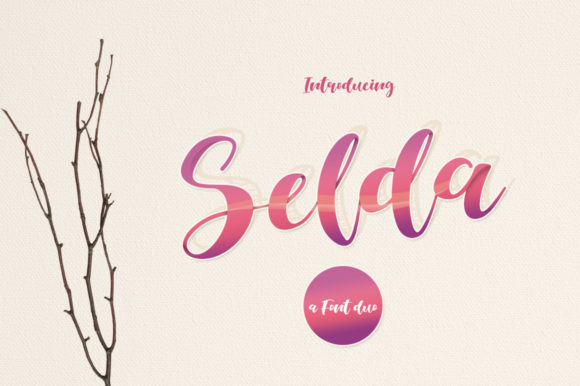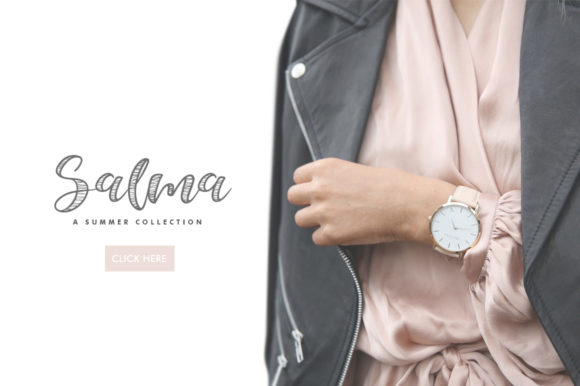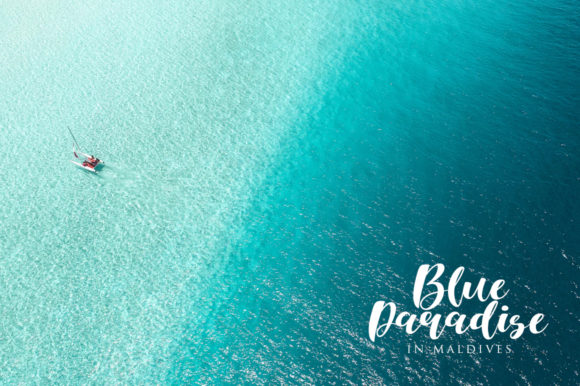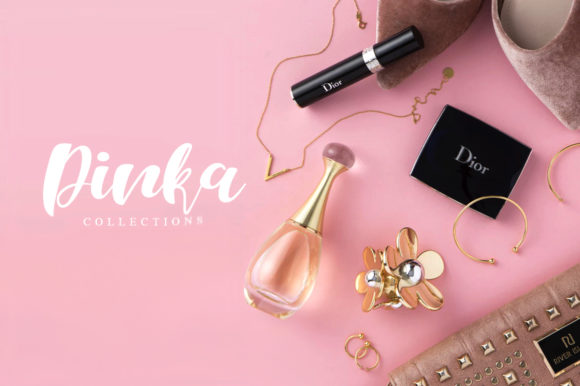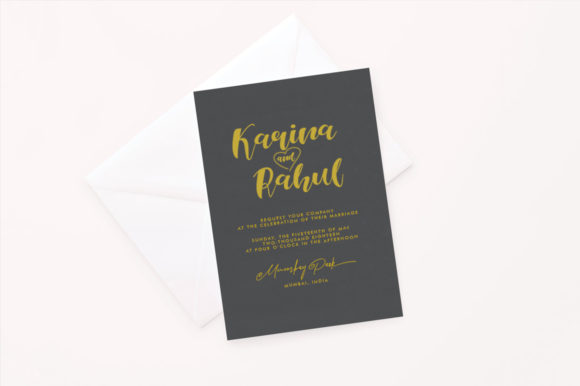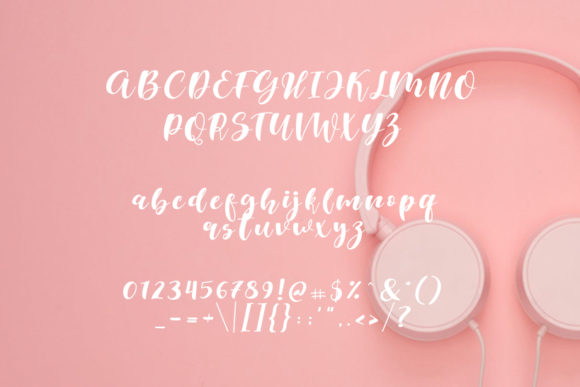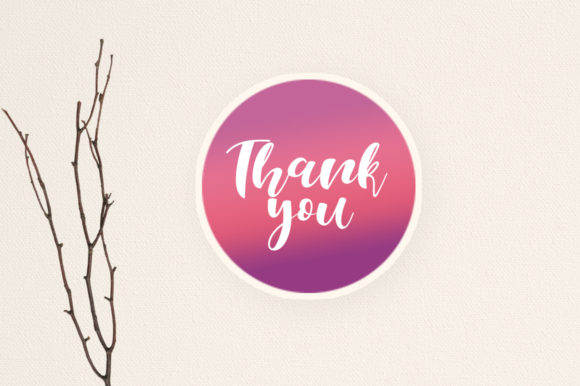
Selda Duo Font
About Selda Duo Font
The Selda is a modern calligraphy font duo. It has a fun feel and is perfect for adding a cheerful touch to your designs. Both styles can be combined, giving you the opportunity to create multiple unique designs in an instant.
It can be used for wedding invitations, logos, posters, advertising, signatures, watermarks, and much more!